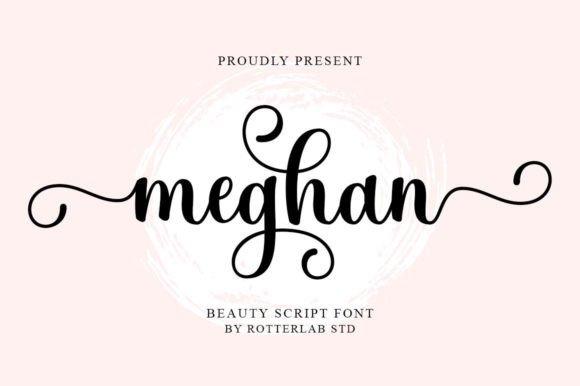
Meghan Font: Elevate Your Design with a Fresh and Modern Script
In the world of typography, a new font has emerged that is taking the design community by storm. Meet Meghan Script, a beautiful and modern script font that is perfect for a wide range of design projects. With its handmade calligraphy style, decorative characters, and dancing baseline, Meghan Script is sure to add a touch of elegance and sophistication to any design.
What Makes Meghan Script So Special?
Meghan Script is a highly versatile font that comes with a range of features that make it perfect for designers. Here are just a few of the key features that set this font apart:
- Handmade Calligraphy Style: Meghan Script has a beautiful, handmade calligraphy style that gives it a unique and personal touch.
- Decorative Characters: The font comes with a range of decorative characters, including swashes, stylistic sets, and alternates, that can be used to add a touch of elegance to any design.
- Dancing Baseline: The dancing baseline of Meghan Script gives it a sense of movement and energy, making it perfect for designs that need to capture the reader’s attention.
- 292 Glyphs: Meghan Script comes with 292 glyphs, including uppercase and lowercase letters, international language support, punctuation, and numbers.
Open Type Features
Meghan Script takes advantage of Open Type features to give designers even more flexibility and control over their designs. Here are some of the Open Type features that are available:
- Swash: Add a touch of elegance to your designs with swashes that can be used to connect letters and words.
- Stylistic Sets: Meghan Script comes with 12 stylistic sets that can be used to create unique and varied designs.
- Stylistic Alternates: The font also comes with stylistic alternates that can be used to add a touch of personality to your designs.
- Contextual Alternates: Contextual alternates allow designers to create a more natural and fluid look by automatically substituting alternate characters based on the context in which they are used.
Use Cases for Meghan Script
Meghan Script is a highly versatile font that can be used in a wide range of design projects, including:
- Invitations: Add a touch of elegance to your wedding invitations, birthday invitations, and other special occasion invitations.
- Greeting Cards: Use Meghan Script to create beautiful greeting cards for holidays, birthdays, and other special occasions.
- Branding Materials: The font can be used in branding materials, such as logos, business cards, and letterheads.
- Posters: Create stunning posters with Meghan Script that are sure to grab the reader’s attention.
- Quotes: Use the font to create inspiring quotes that can be used on social media, blogs, and other digital platforms.
Meghan Script is a beautiful and modern script font that is perfect for designers who want to add a touch of elegance and sophistication to their designs. With its handmade calligraphy style, decorative characters, and dancing baseline, this font is sure to take your designs to the next level. Whether you’re creating invitations, greeting cards, branding materials, or posters, Meghan Script is a versatile font that can be used in a wide range of design projects.